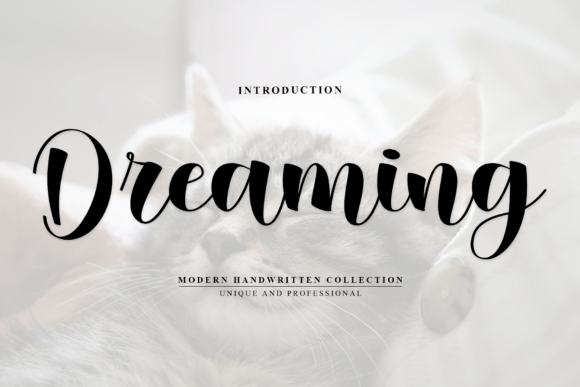
The Magic of Handwritten Fonts: Unleashing the Beauty of Dreaming Font
Have you ever sat down with a cup of coffee, pen in hand, and let your imagination run wild? The scribbles on the page may not have made sense to anyone else, but to you, they were a masterpiece. That’s the magic of handwritten fonts – they capture the essence of human creativity and add a touch of personality to any design.
Enter Dreaming Font, a beautiful handwritten font that’s as elegant as it is versatile. With its natural, flowing style, it’s perfect for adding a personal and stylish touch to invitations, logos, and social media posts. Whether you’re a seasoned designer or a creative enthusiast, Dreaming Font is a valuable addition to your toolkit – and we’re excited to share its secrets with you.
Dreaming Font Key Features
- Unique Characteristics: Dreaming Font features a unique blend of elegant and whimsical elements, with intricate details and flourishes that add a touch of sophistication to any design.
- Font Styles: The font family includes 6 different styles, ranging from Light to Bold, each with its own distinct personality and aesthetic.
- Scalability: The font is highly scalable, making it suitable for use in various design contexts, from small text to large headings and titles.
Dreaming Font Review
Overall, I have mixed feelings about the Dreaming Font. While it has some great qualities, it also has some notable limitations. Let’s dive into the good and the bad.
- Unique flair**: Dreaming Font has a distinctive, whimsical feel that can add a touch of personality to any design.
- High-resolution support**: The font looks crisp and clear at high resolutions, making it suitable for digital use.
- Legibility**: Despite its ornate appearance, the font is surprisingly easy to read.
- Limited character set**: The font’s character set is somewhat limited, which can make it difficult to use for extended text passages.
- Not suitable for small text**: The font’s intricate details can make it difficult to read at small sizes, which can be a problem for body text.
Overall impression
I think the Dreaming Font is best suited for use as a headline or title font, where its unique flair can really shine. While it has some limitations, it’s a great choice for designers looking to add a touch of whimsy to their designs.
To add a touch of elegance, use Dreaming Font for headings and subheadings. Combine it with other fonts for a visually appealing contrast.
Use Dreaming Font for titles, headings, and other text elements that require a touch of sophistication.
Use Dreaming Font for headings, titles, and other text elements that require a touch of elegance.
Combine Dreaming Font with other fonts for a visually appealing contrast.
Use Dreaming Font for titles, headings, and other text elements that require a touch of sophistication.
Dreaming Font is ideal for wedding invitations, baby shower invitations, and other special occasion designs.
Use Dreaming Font for luxury branding, high-end marketing materials, and premium product packaging.
Dreaming Font is a script font that is often used for creative and artistic projects. However, it may not be the best choice for every design. Here are a few alternatives that can add a similar touch to your projects:
Great Vibes is a modern script font that is perfect for creating a friendly and approachable atmosphere. It is ideal for use in invitations, posters, and other creative projects where a casual tone is desired. Compared to Dreaming Font, Great Vibes has a more relaxed feel and is more suitable for digital use.